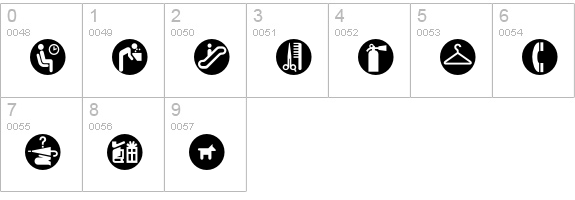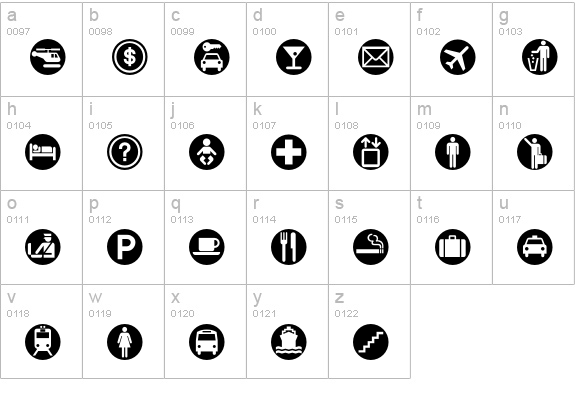
TransportationWhite Font Details
TransportationWhite is a sleek and modern font that embodies the essence of effortless movement and seamless travel. With its clean lines and crisp edges, this font exudes a sense of efficiency and elegance, making it perfect for any transportation-related project. The striking white color of this font adds a touch of sophistication and sophistication, making it stand out on any background. Whether you're designing a logo for a transportation company, creating signage for a bustling airport, or even designing a travel-themed website, TransportationWhite will elevate your design to new heights. One of the best things about TransportationWhite is that it is freely available to download at FontsMarket.com. This means that you can easily access and use this font in your projects without any hassle or cost. It's a fantastic opportunity to enhance your designs with a professional and visually appealing font, without breaking the bank. Not only does TransportationWhite offer a visually stunning aesthetic, but it also delivers excellent legibility. Its clean and well-defined characters ensure that your text will be easily readable, even from a distance. This is particularly important in transportation-related projects, where conveying information quickly and efficiently is essential. Whether you're creating captivating advertisements, eye-catching signage, or engaging website headers, TransportationWhite will effortlessly convey your message with style and clarity. Its versatility allows it to adapt to various design contexts, making it a reliable choice for designers and creatives alike. In conclusion, TransportationWhite is a free font that combines modernity, elegance, and legibility in one powerful package. With its sleek lines, striking white color, and easy accessibility, it is the perfect choice for any transportation-related project. Download it now at FontsMarket.com and let your designs soar to new heights.